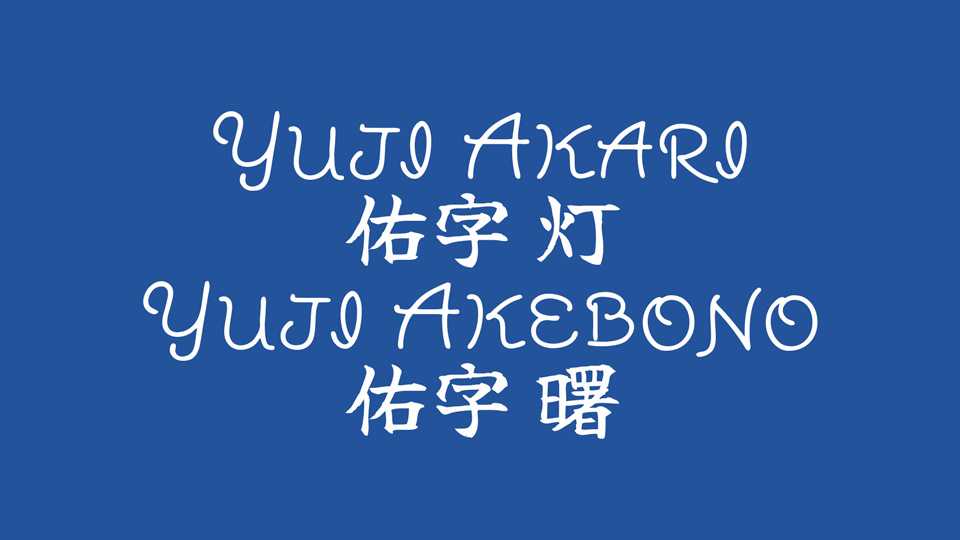
Download Yuji Akari and Yuji Akebono fonts, are several types of Hentai kana, the former style of kana. Latin alphabets are designed only in capital letters. The lower-case letters are in small caps.
Designer: Yuji Kataoka